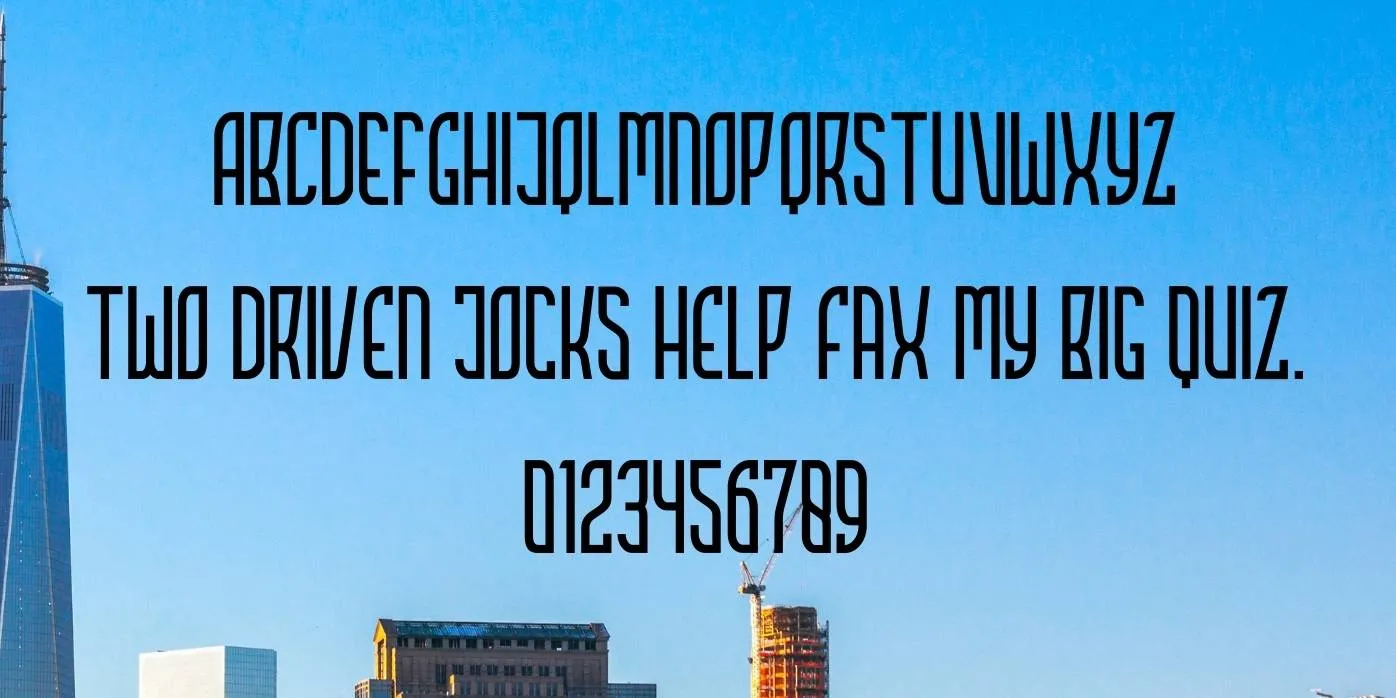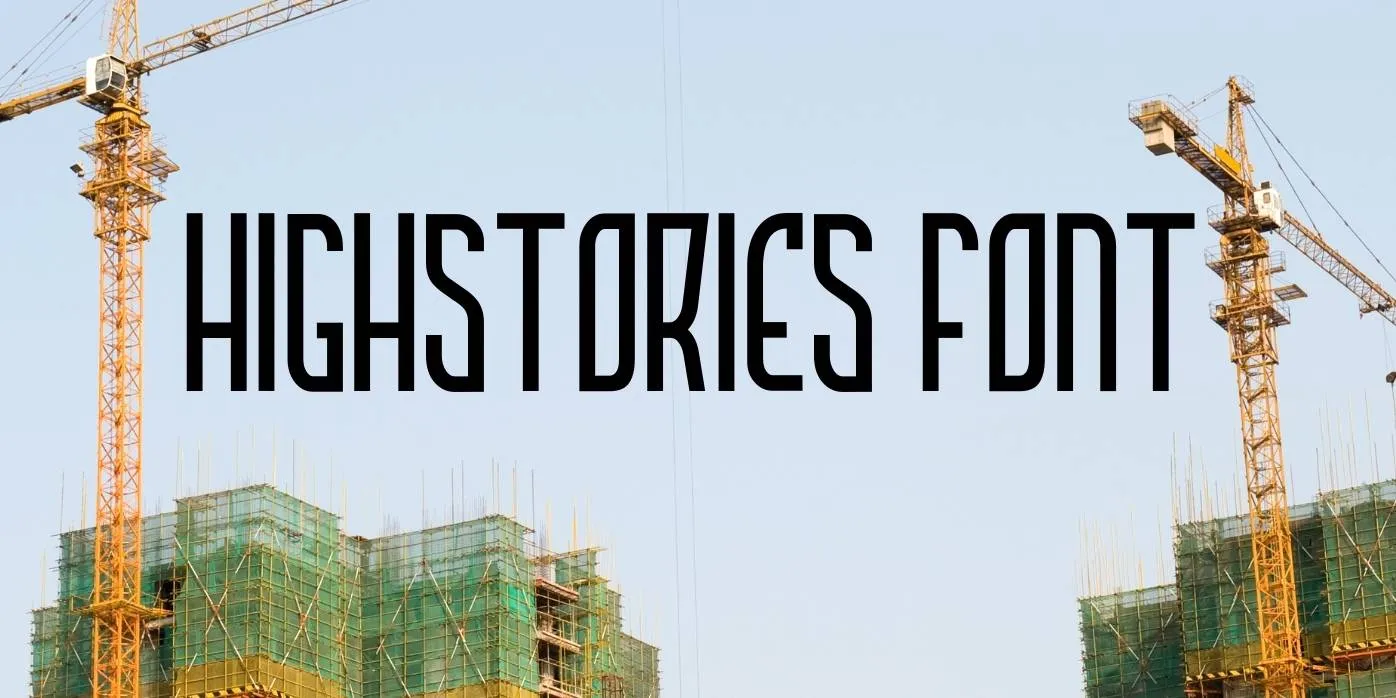
Highstories Font
We are glad to present a news classic font that was famous by the name Highstories. This smooth-looking font belongs to the Display Typeface. This awesome font was designed after too much hard work from an elegant designer named Mlkwsn. This font family is available in many stylish designs.
It makes your designs perfect and easy to be read by everyone because of its Lettering. This font is the best choice for different types of graphic designs, logos, and many more. This typeface comes in 11 unique and great styles. You can also use this font for other software like Adobe Photoshop, and MS Word.
Also, you can use this font for Adobe Indesign, and Adobe Illustrator. This cozy typeface supports a great number of languages this is the reason behind its uses all over the world for various types of designs. PUA characters of this font family are easily used for designs without any need for any software. Audiowide Font is similar to this stunning font family you can also use this for different projects of your interest.